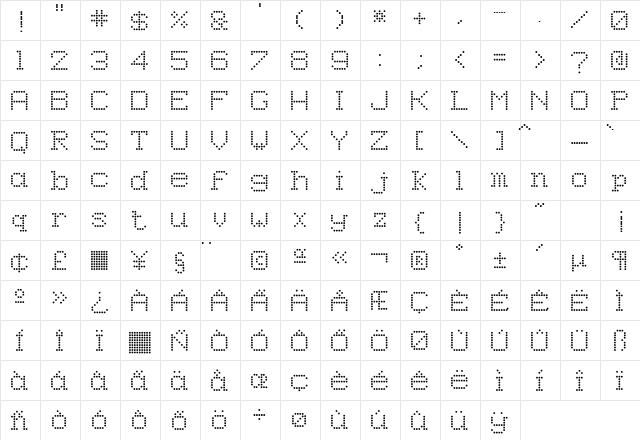
8PinMatrix Regular
Design Context for 8PinMatrix Typeface
8PinMatrix is a composed and adaptable typeface that performs quietly and consistently across a wide range of design contexts.